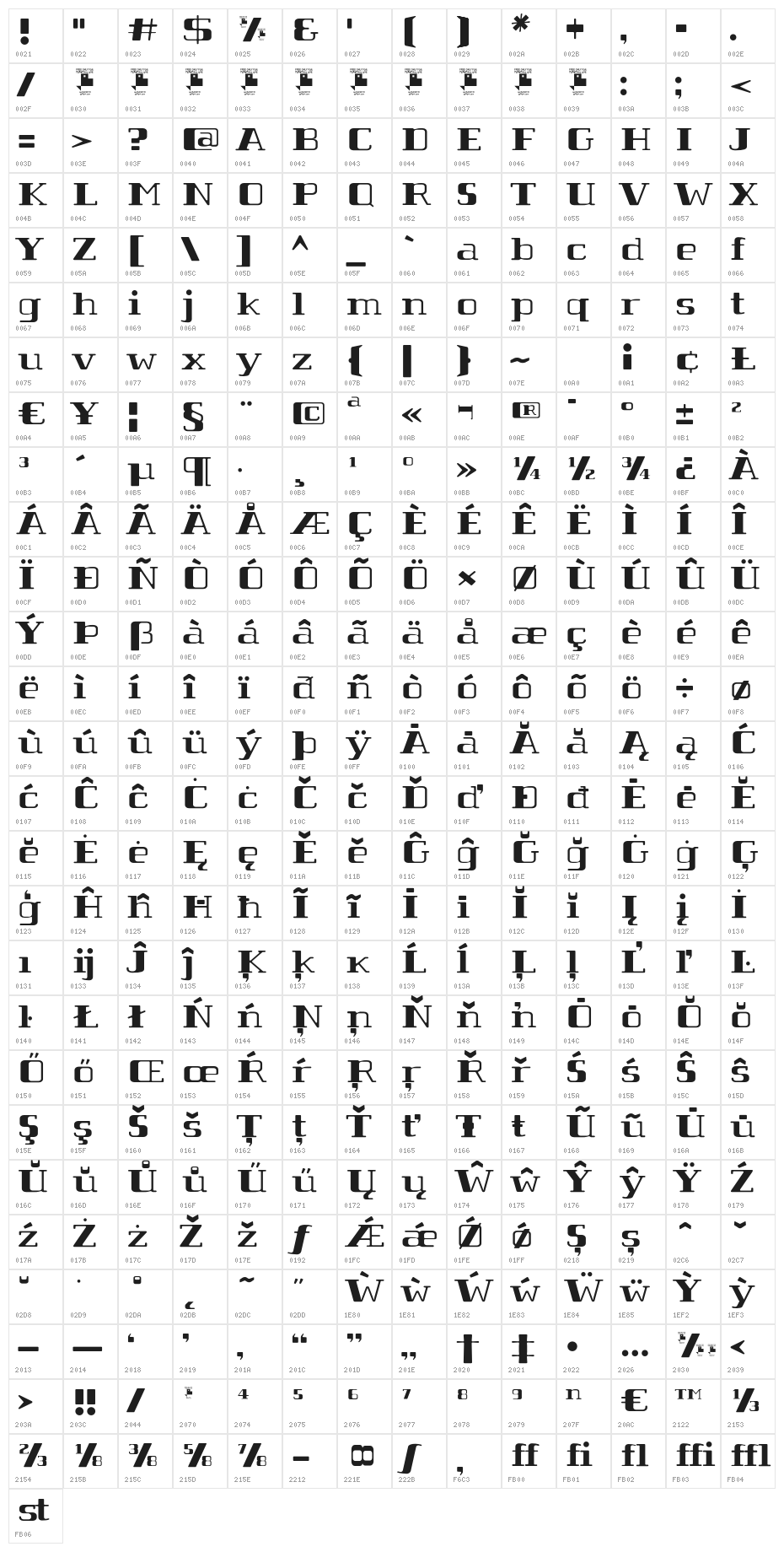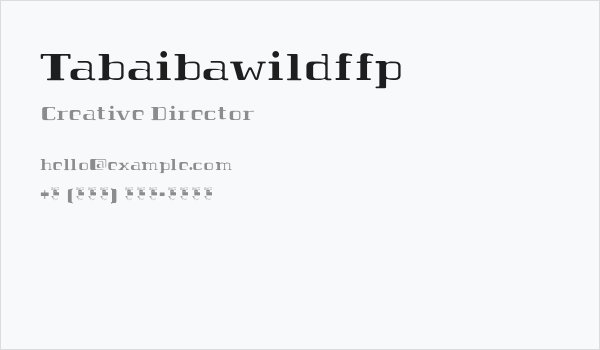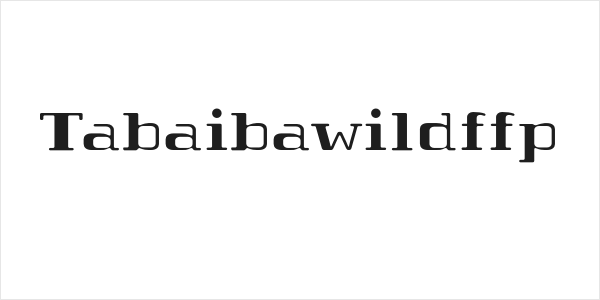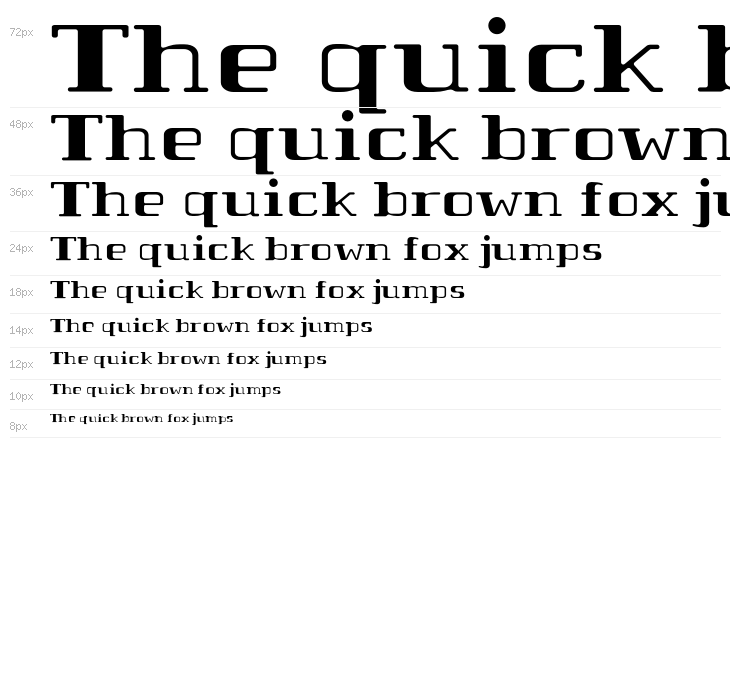
Tabaibawildffp Font
Tabaibawildffp Description
This font features a bold and striking design with a modern twist. The uppercase letters are characterized by strong, angular lines and a slightly condensed form, giving them a powerful presence. The lowercase letters maintain a similar style but with a softer touch, providing a nice balance between strength and elegance. The numerals are consistent with the overall design, offering clarity and readability. Special characters are uniquely styled, adding a distinctive flair to the font. The overall appearance is both contemporary and versatile, making it suitable for a variety of design applications.